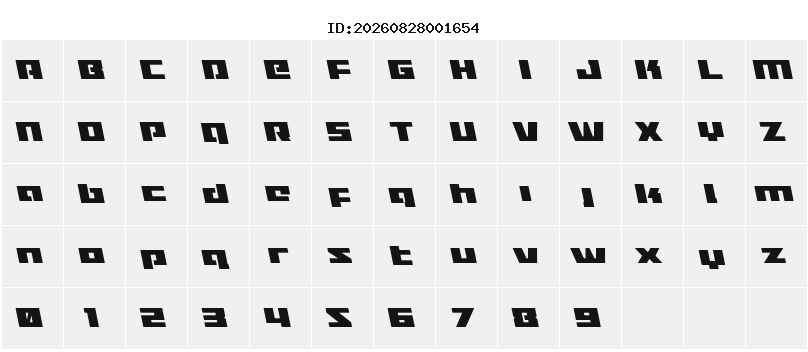
• Font Name: Turbo Charge Leftalic
About Turbo Charge Leftalic.ttf
Turbo Charge Leftalic.ttf is a modern, elegant sans-serif font designed for ultimate readability and visual harmony. Perfect for branding, headlines, web design, and print materials.